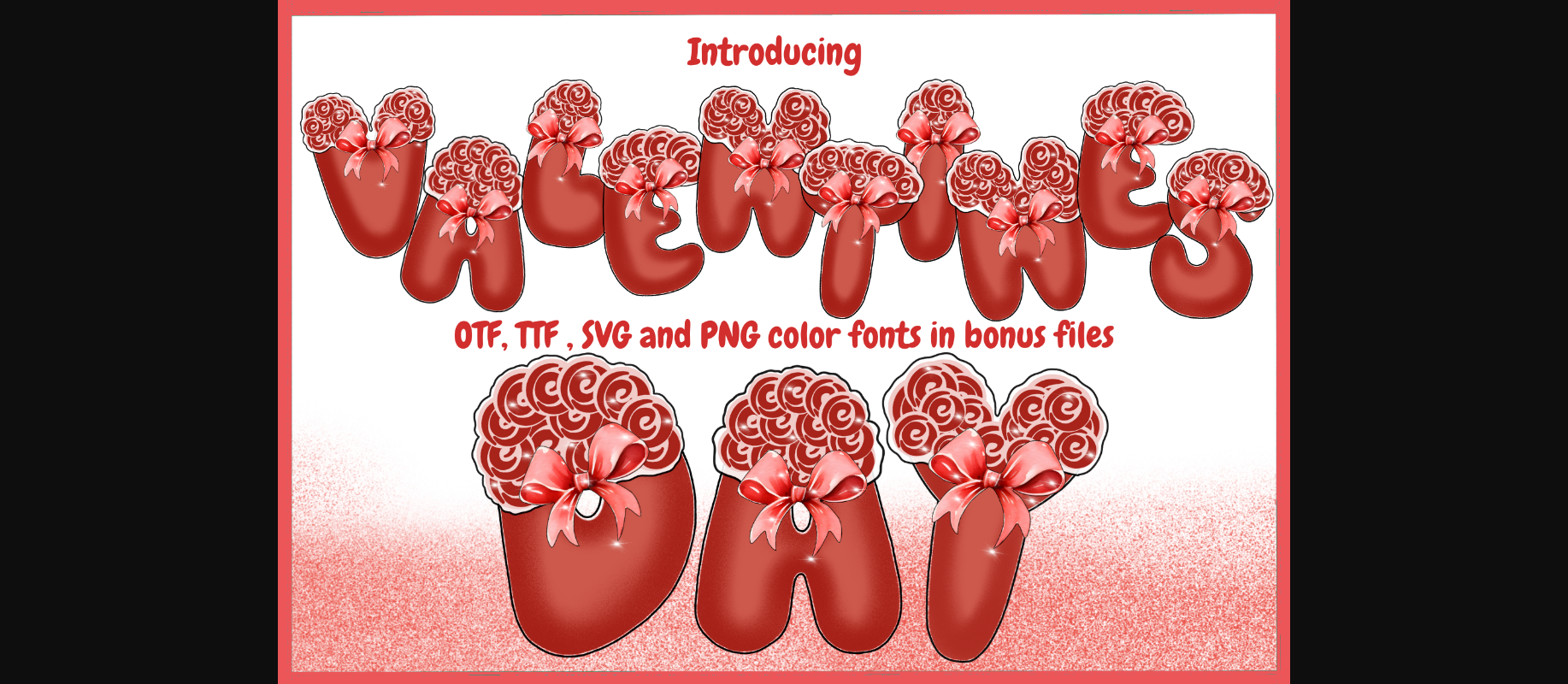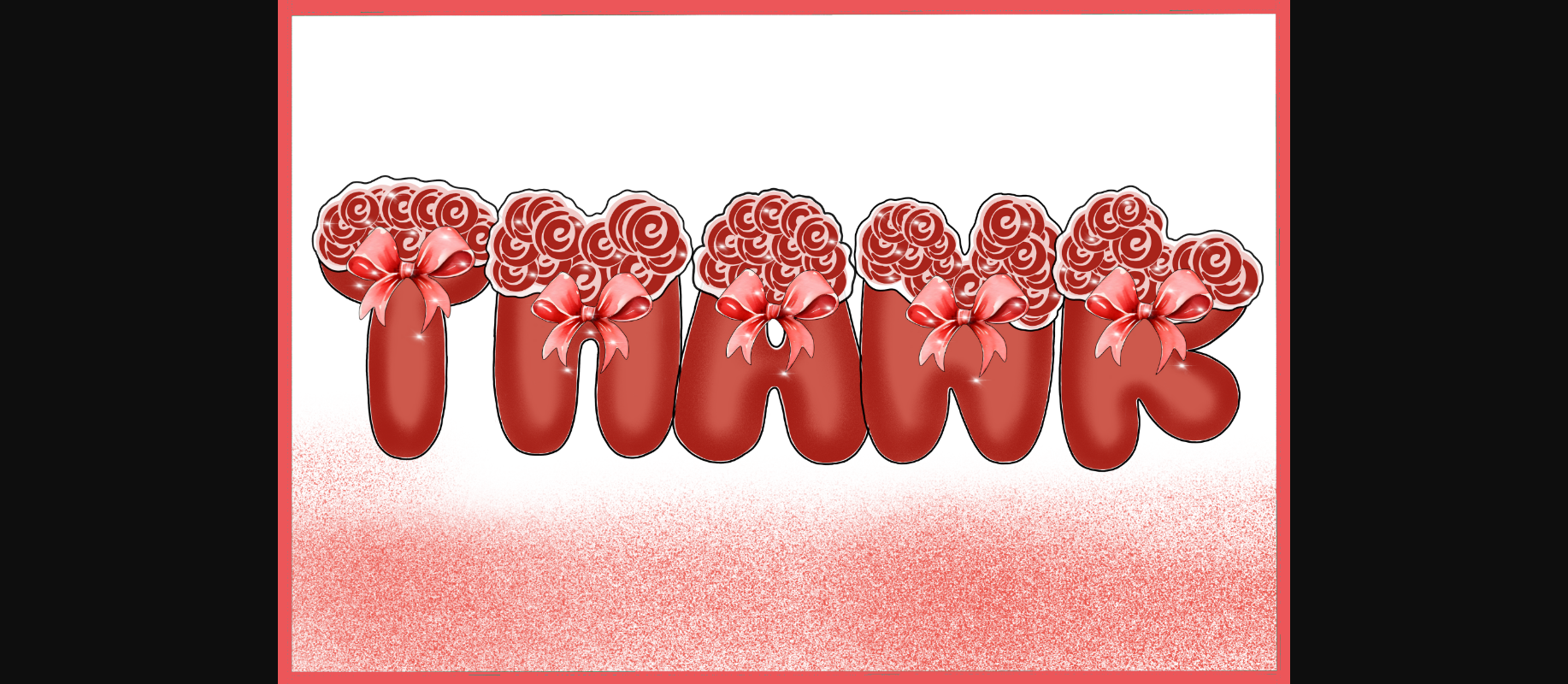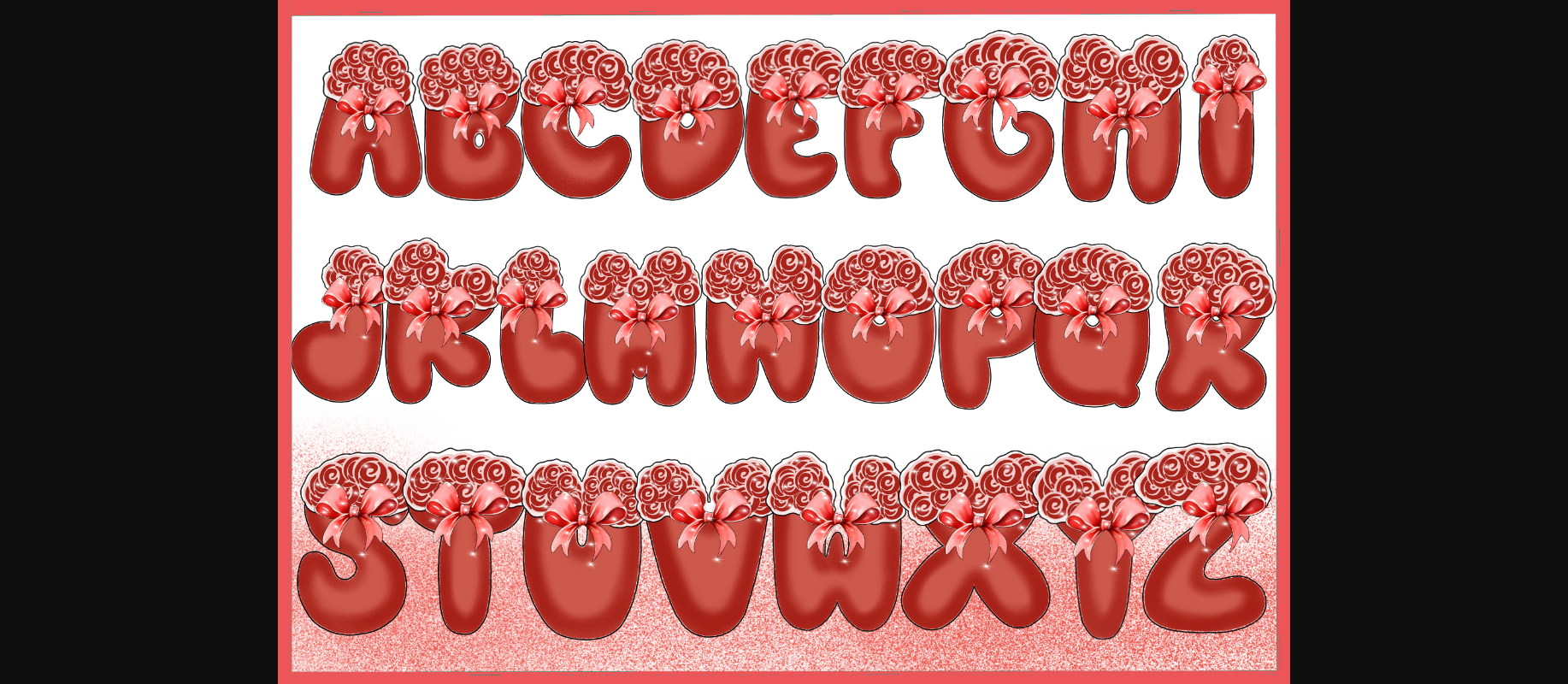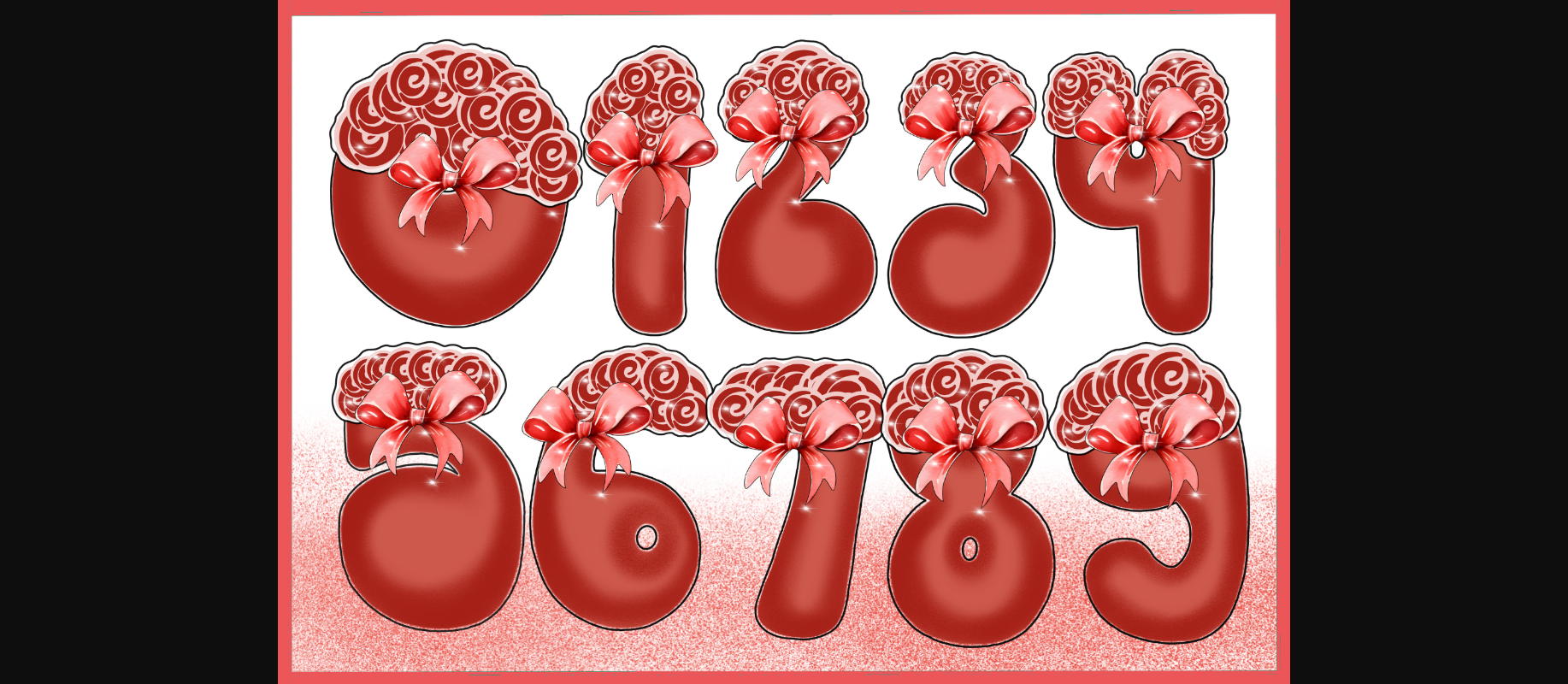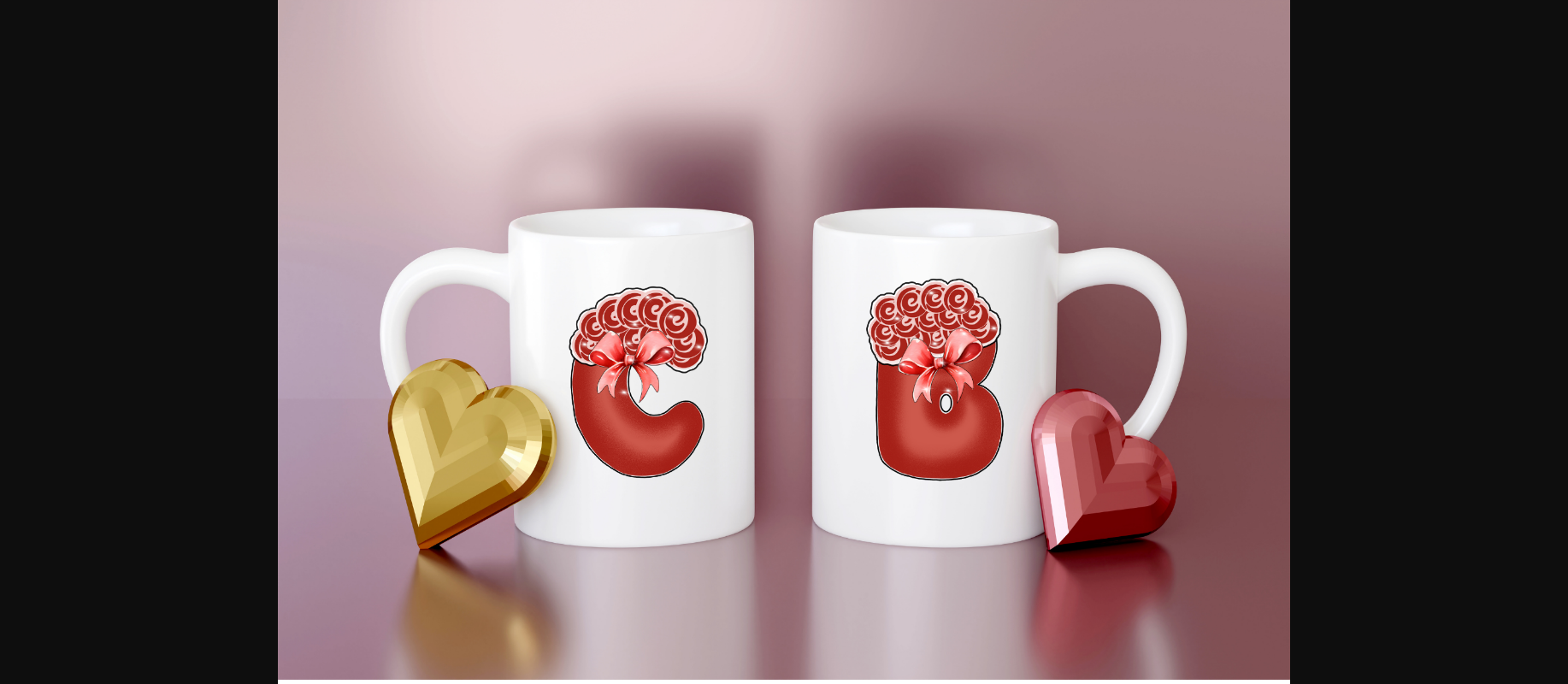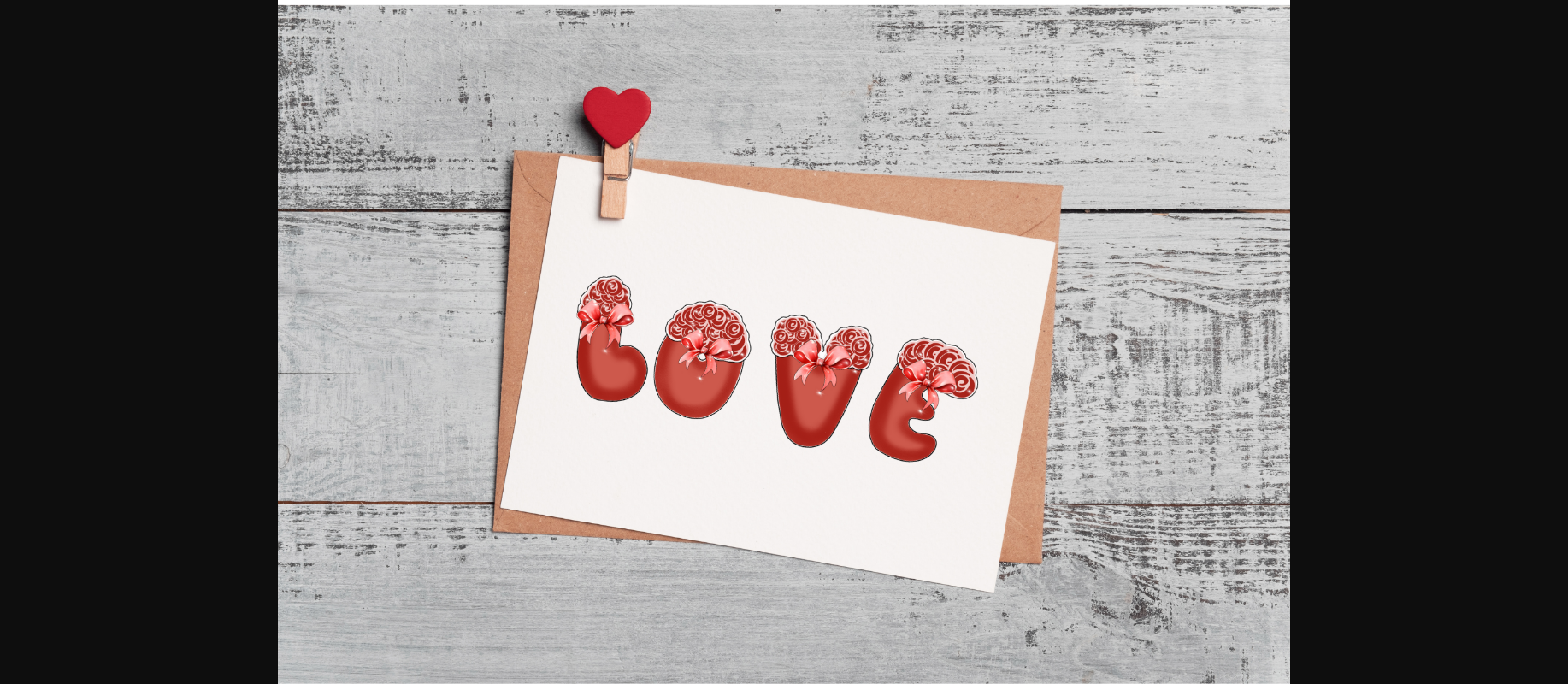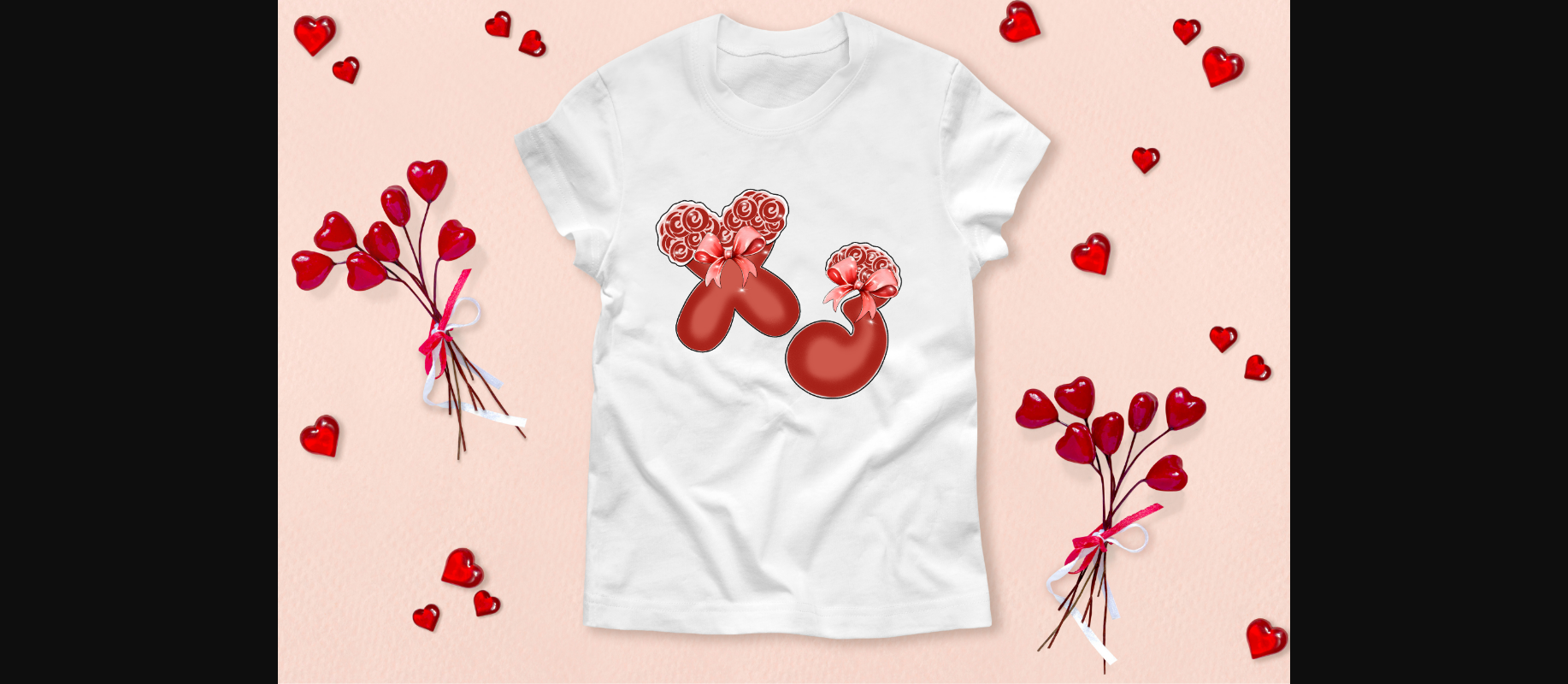
Valentines Day Font
About Valentines Day Font
Introducing the Valentines Day Font – a wonderfully luxurious and beautiful typeface tailor-made for creating exquisite wedding cards, invitations, and delightful decorations this Valentine’s Day. Elevate your romantic projects with this font’s touch of opulence and elegance. Perfect for adding a touch of love and sophistication to your special day!